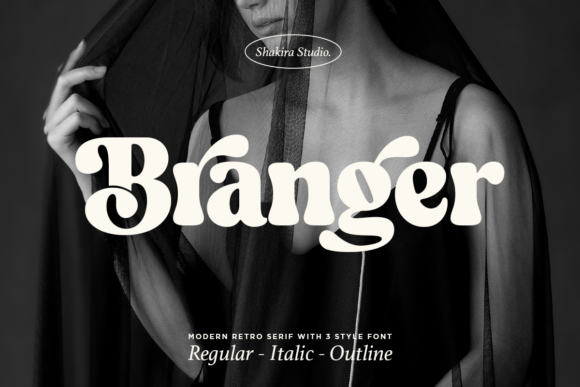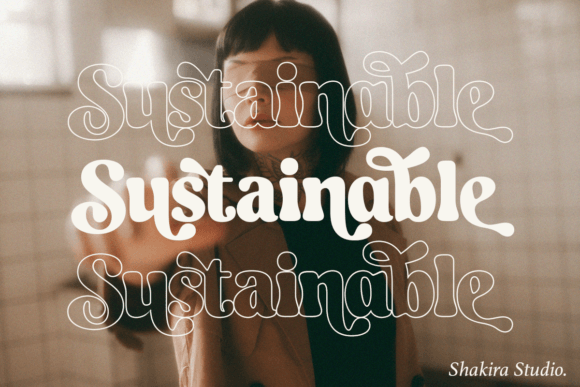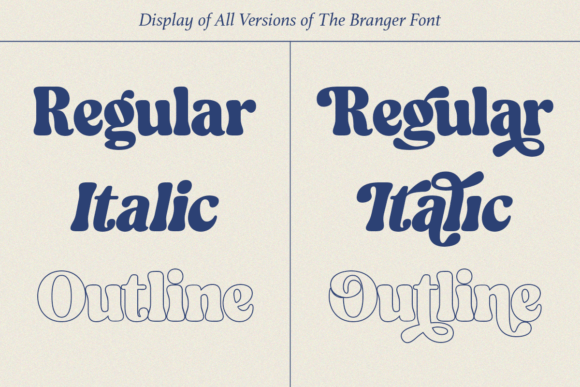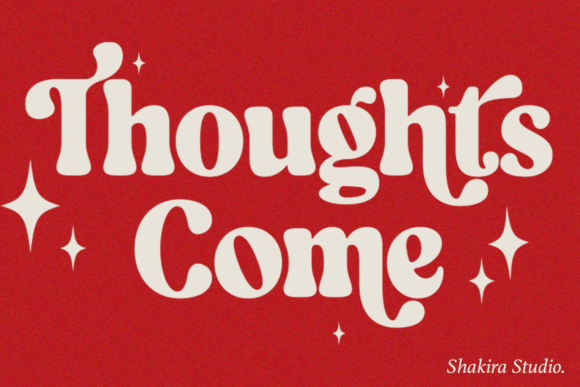
Branger Font: Bold Retro Serif Typography for Inspiring Logo Design
About the Branger Font
The Branger Font is here to transform your projects with its distinctive character and style. Branger isn’t just a serif font; it’s a versatile toolkit for designers seeking to make a bold statement. With its bold retro serif characters and three stylish variations – regular, italic, and outline – Branger embodies the essence of serif fonts and typography trends.
Branger’s bold, retro style makes it ideal for headlines, logos, and short impactful text on posters or packaging. Its strong character shines in branding for products aiming for a vintage or classic feel with a modern twist. Avoid using Branger for body text or long paragraphs; its weight and x-height aren’t suited for extended readability.
Pairing Branger effectively depends on the desired emphasis. For a classic yet contemporary feel, consider pairing it with a clean sans-serif like Open Sans or a geometric sans-serif like Futura. To enhance its retro vibe, a playful script font such as Pacifico could add a touch of vintage charm.
Branger projects a confident and assertive personality, perfectly suited for brands conveying strength, heritage, or a bold aesthetic. Its versatility allows for both modern and vintage applications, making it a valuable asset for designers seeking a strong typographic presence.
Branger Font Usage Examples
Branger Font Example